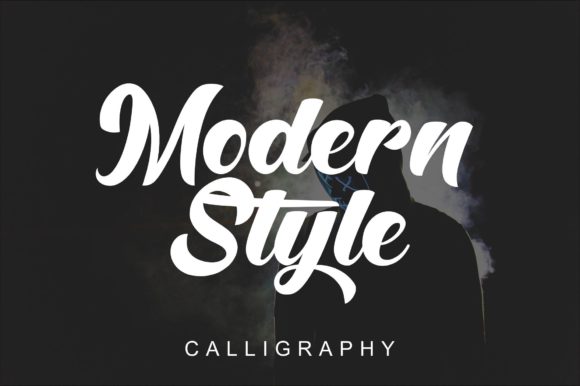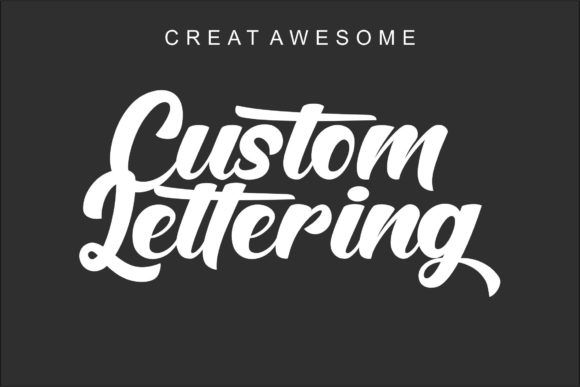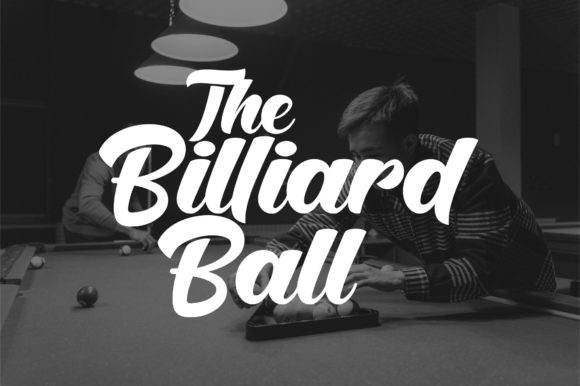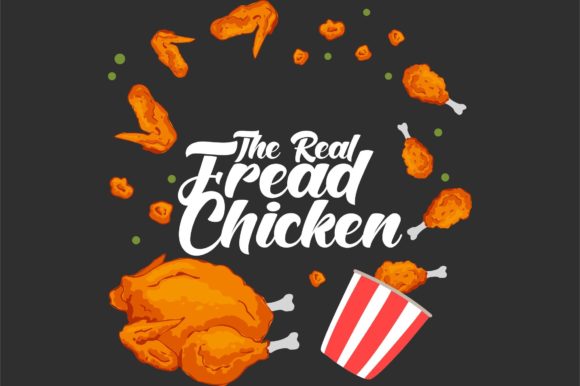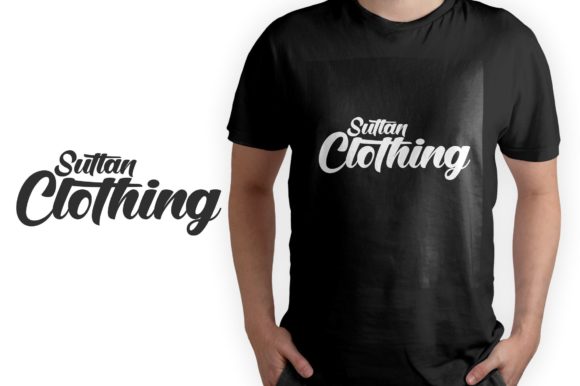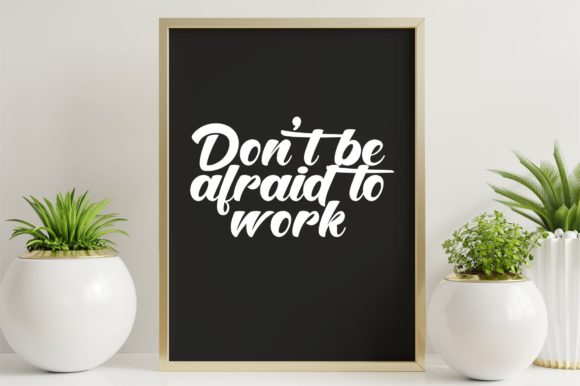
Introduction to Mountain Chaligature Font
Mountain Chaligature is a modern and bold script font.
Each letter has a unique and beautiful touch, which will bring your designs to life Add it confidently to your projects, and you will love the results.